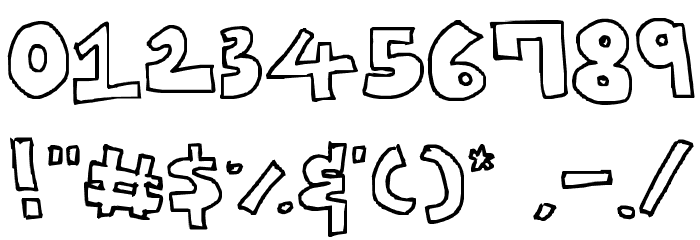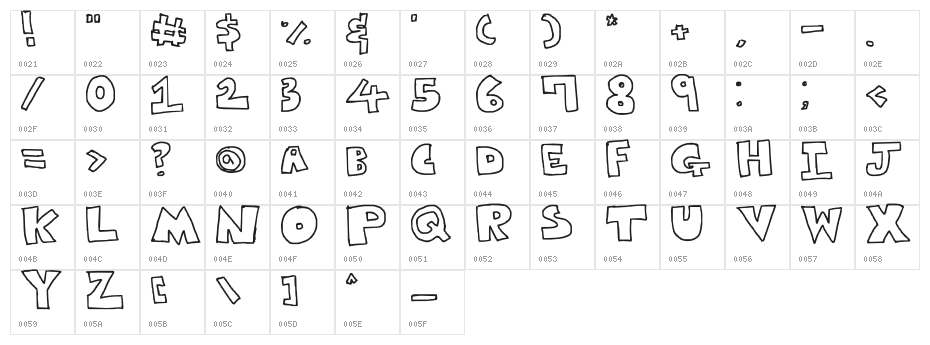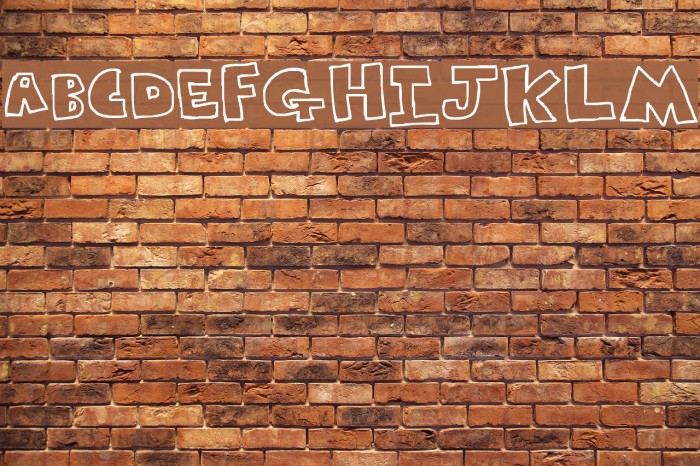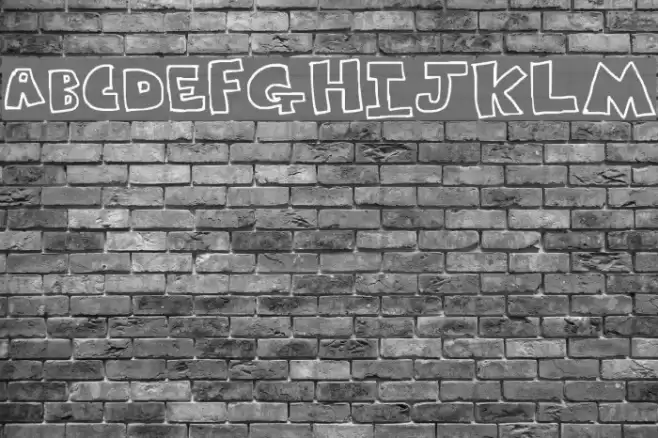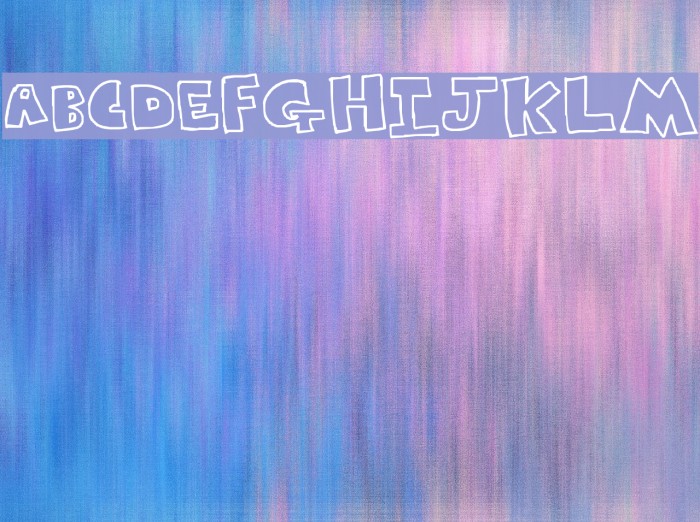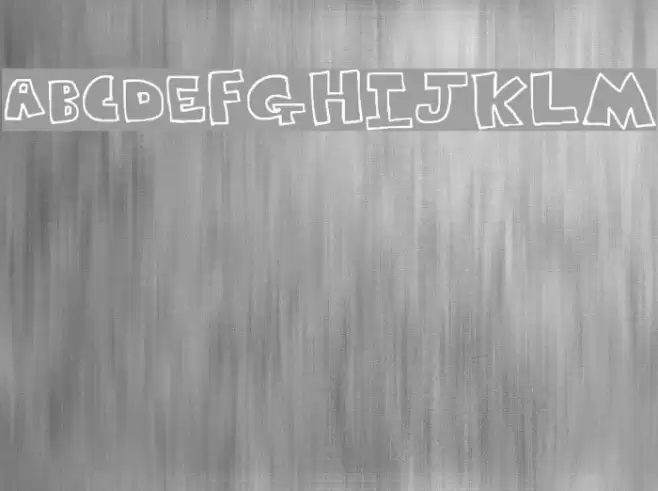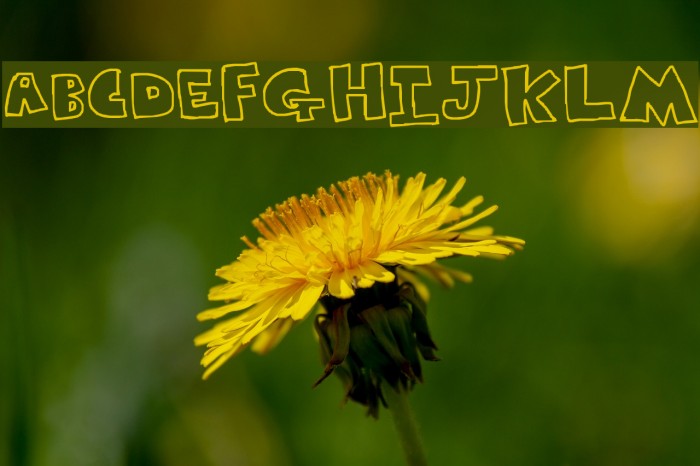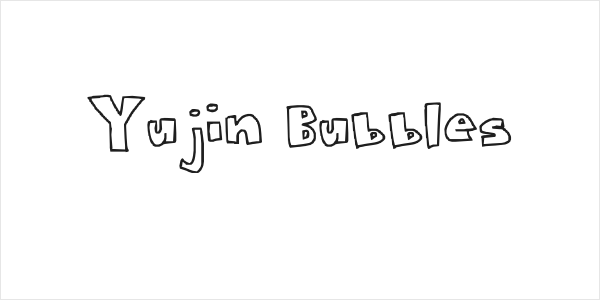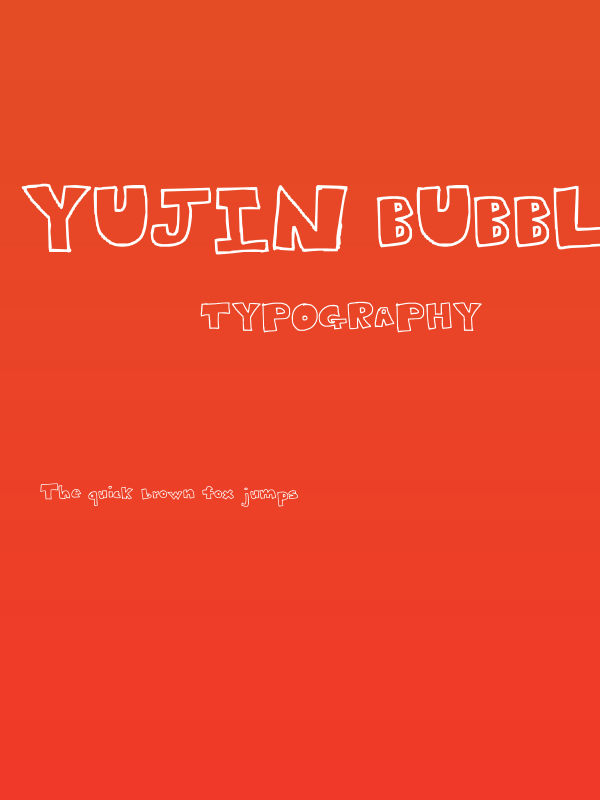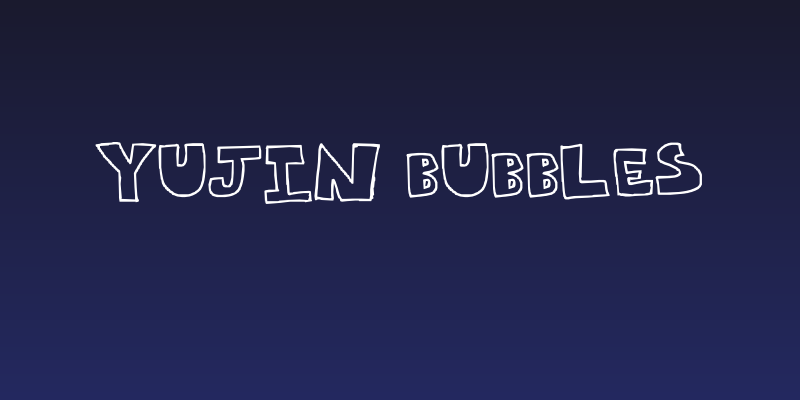
Yujin Bubbles Font
Yujin Bubbles Description
This playful and whimsical font features bold, rounded characters with a hand-drawn appearance. The letters are slightly irregular, adding a sense of fun and creativity. The uppercase and lowercase letters maintain a consistent style, with a bubbly and cartoonish look. Numbers and special characters follow the same playful design, making the font versatile for various creative projects. The overall style is informal and friendly, perfect for capturing attention in a lighthearted way.